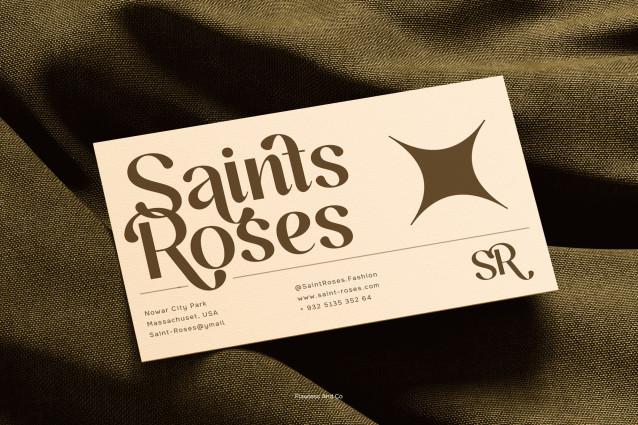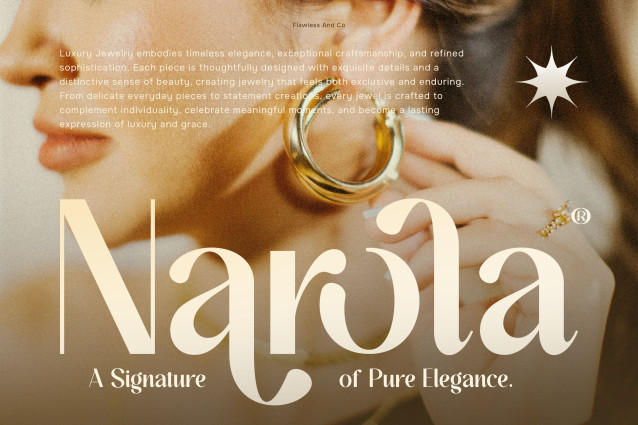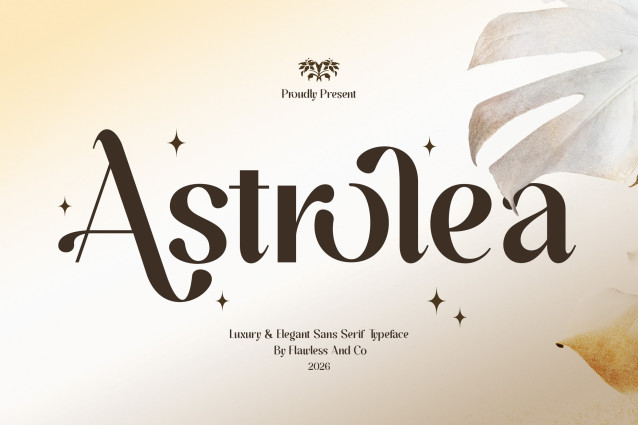
Astrolea – Elegant Sans Serif Font
Astrolea – Elegant Luxury Sans Serif Font
Astrolea is an elegant luxury sans serif font featuring high-contrast strokes, flowing curves, and distinctive letterforms. Its refined proportions combine clean structural elements with expressive shapes, creating a sophisticated display style for contemporary luxury-focused designs.